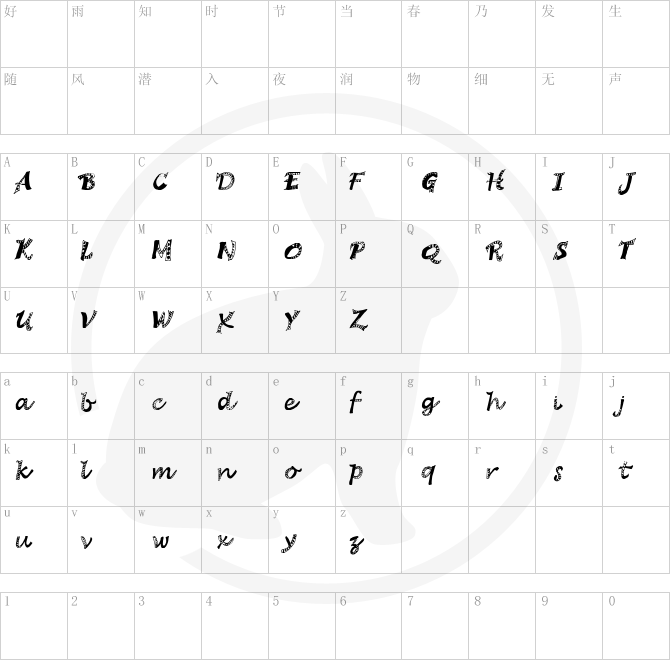
- Font Name:Hagadou
- Full Name:Hagadou Regular
Hagadou-Regular.ttf is a very beautiful artistic font, Hagadou-Regular.ttf is widely used in the design and printing of various books and pictures,Hagadou-Regular.ttf has a strong visual impact,Hagadou-Regular.ttf is a commonly used font in newspapers, magazines and books, and is used in posters, e-commerce Poster design, store design, logo design, font design and other fields.Hagadou-Regular.